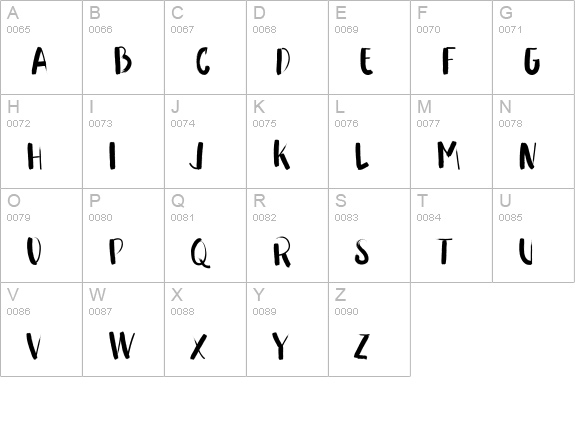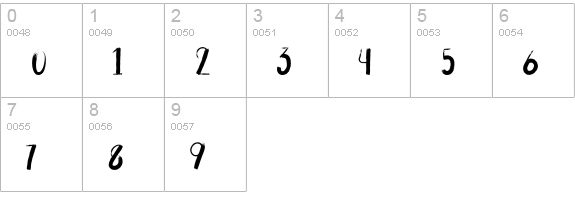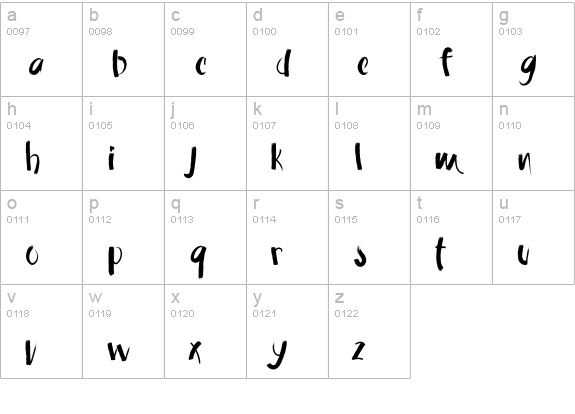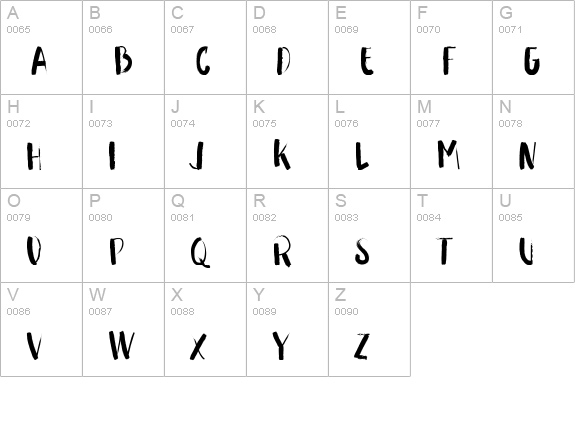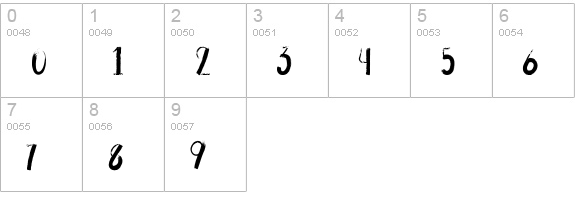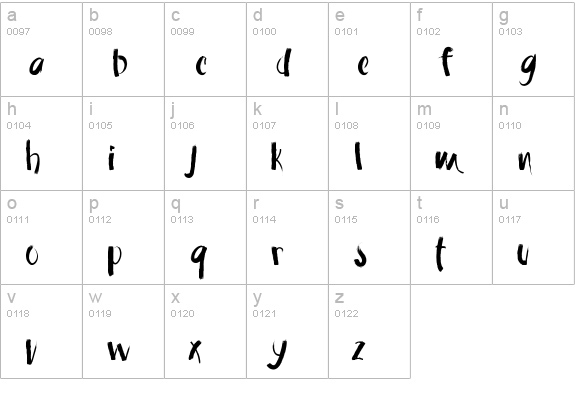
Rawmon Font Details
Rawmon is a demo font in the Theme > Horror category, designed by HydricDesign. It has been downloaded 67 times and is available for Windows, Mac and Linux.
Rawmon font is a modern and versatile typeface that exudes a unique blend of elegance and edginess. With its clean lines and stylish curves, Rawmon is perfect for a wide range of design projects, from branding and logos to posters and packaging.
What sets Rawmon apart is its distinct character and personality, making it a standout choice for those looking to make a bold statement with their typography. Whether you're going for a sleek and sophisticated look or a more playful and creative feel, Rawmon has got you covered.